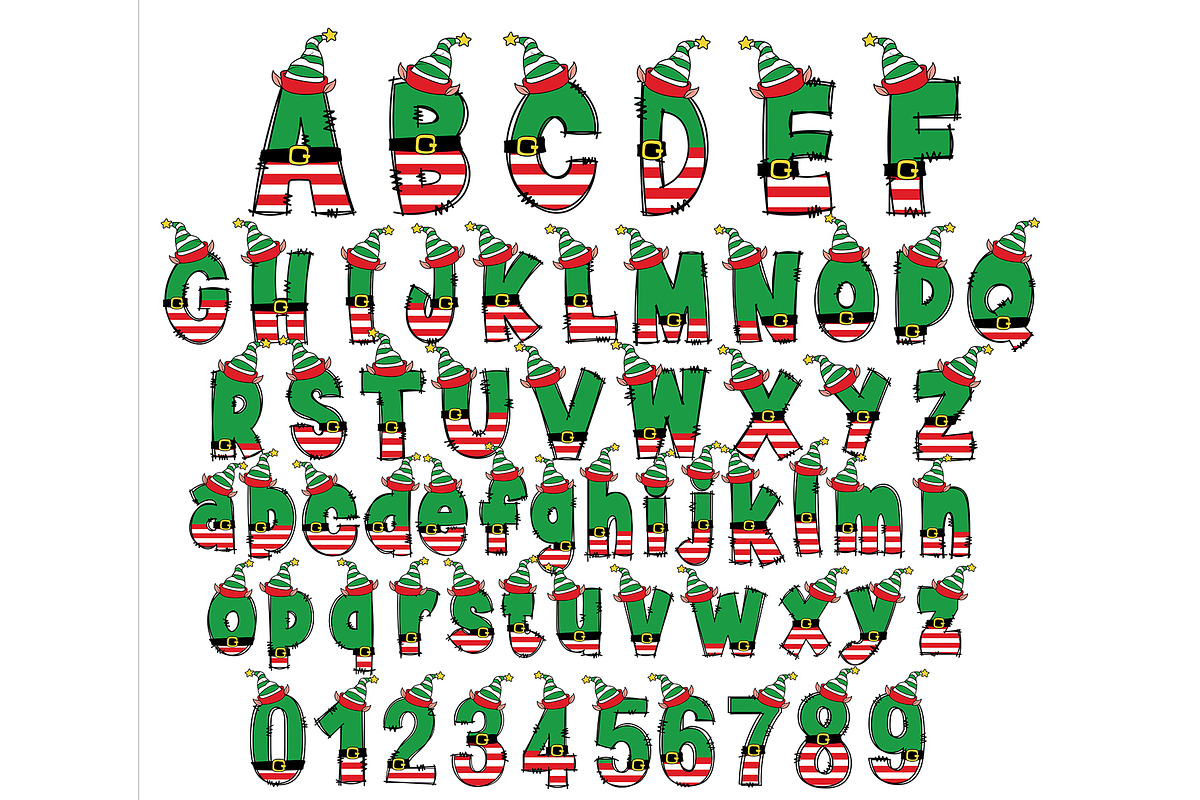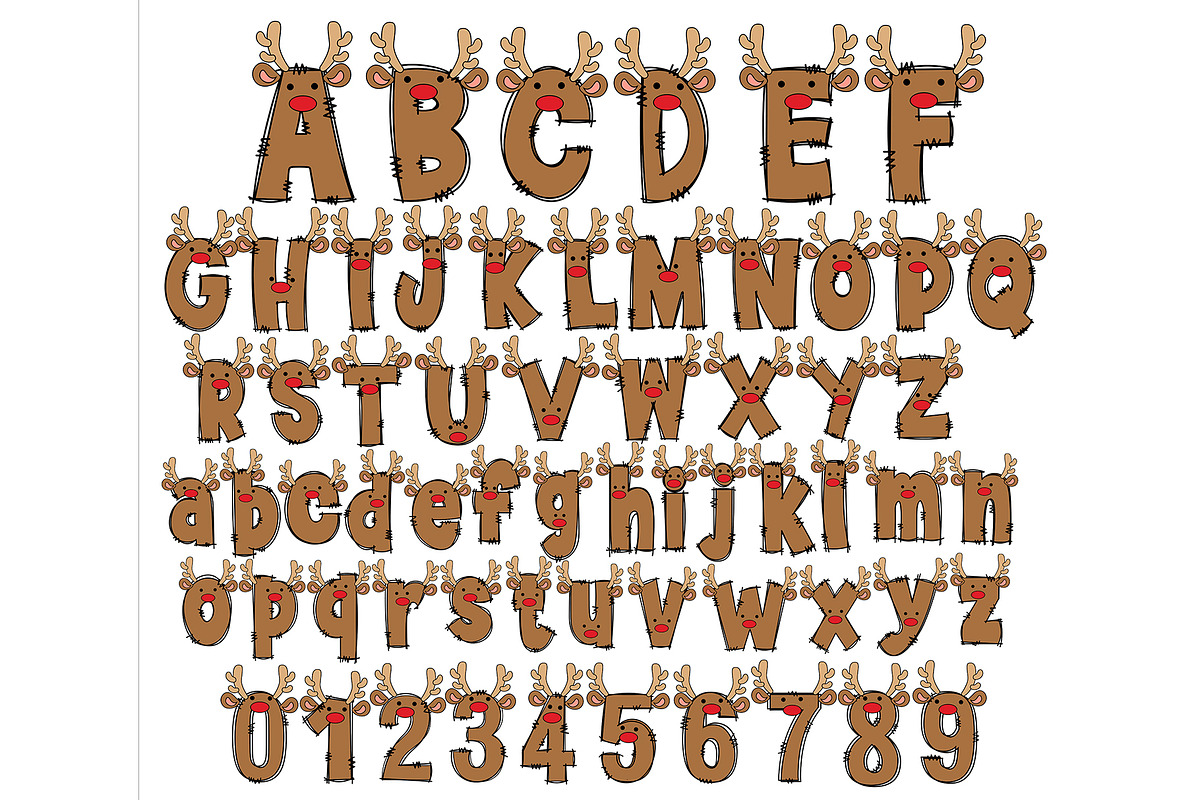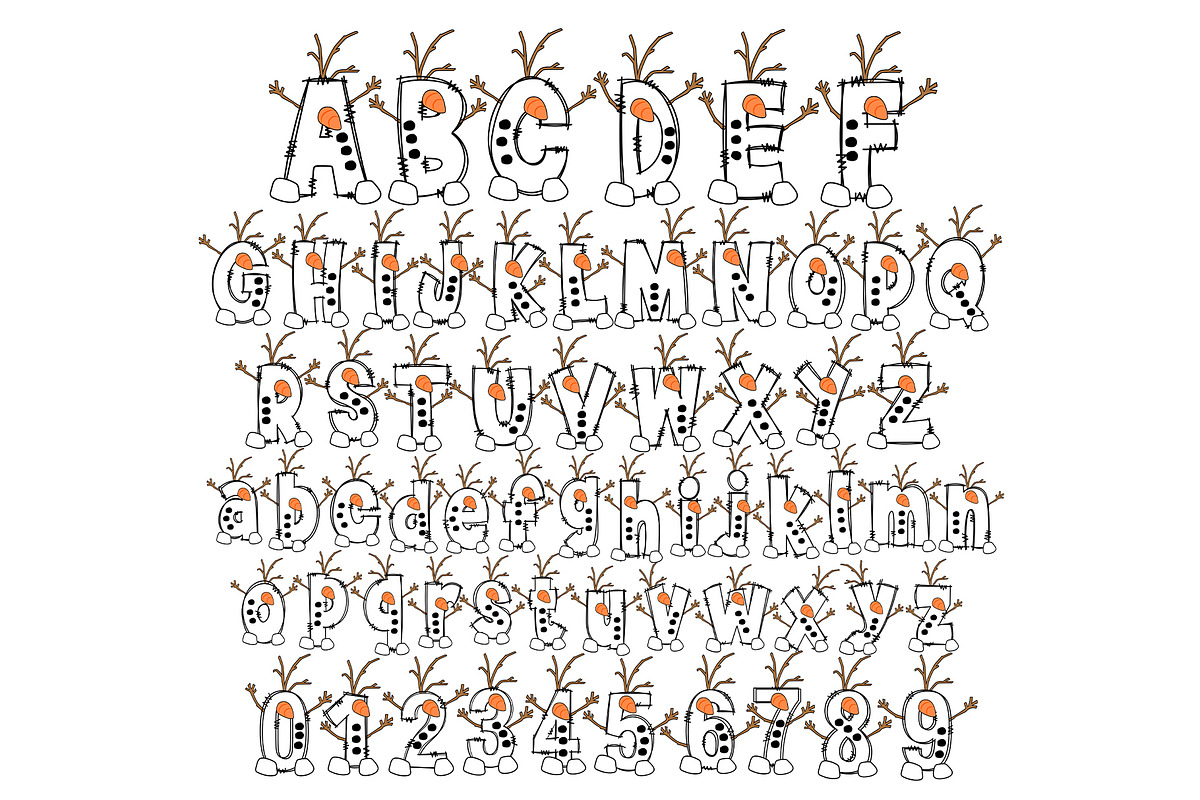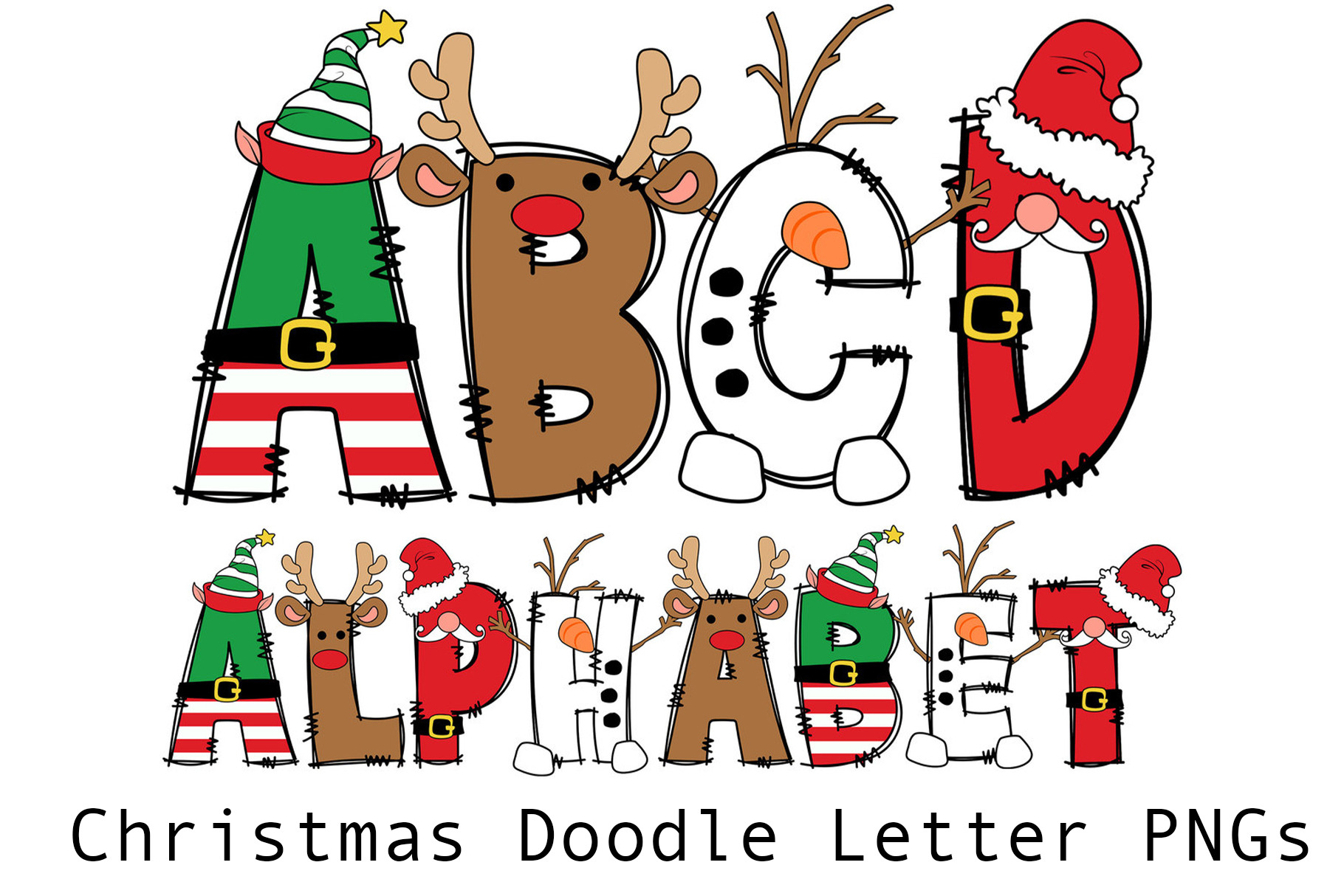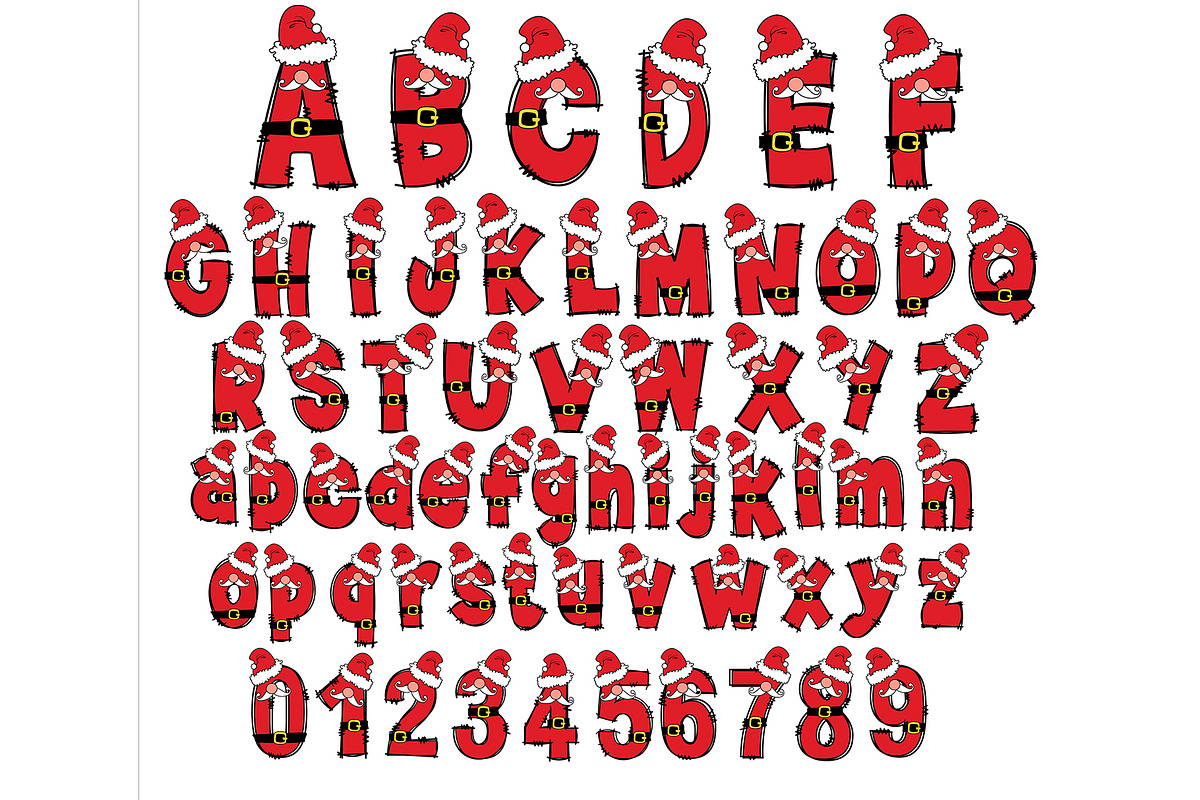
Christmas Doodle Font
Christmas Doodle letters, Santa Sublimation Font, Xmas Doodle Alpha Bundle, Reindeer Elf Santa Clause Numbers & Alphabet Doodle Set PNG.
- Letters A to Z